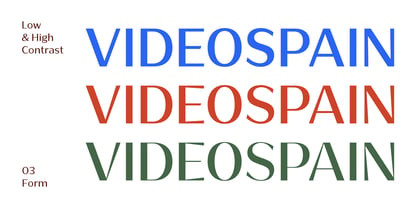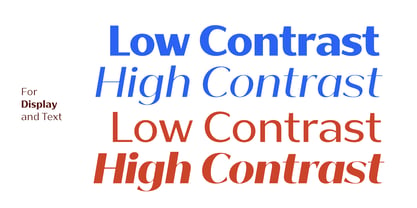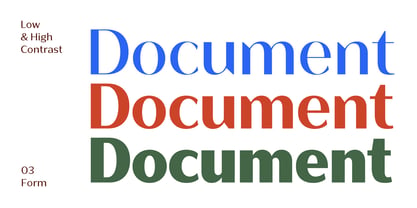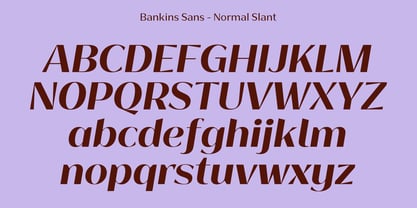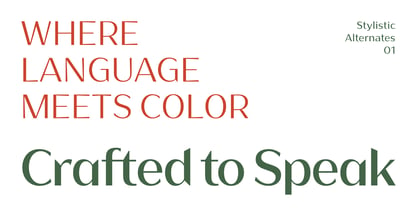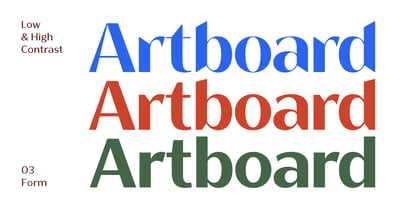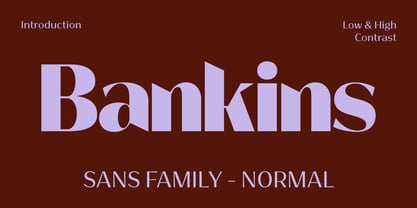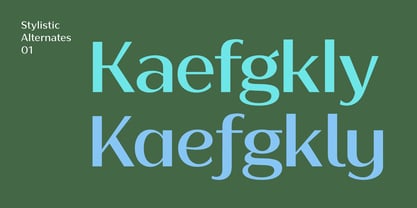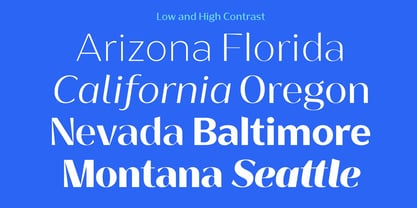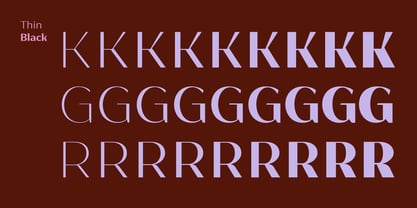
Bankins Normal
by Akbartype
The Bankins Normal Font Family was designed by Azzura . and published by Akbartype. Bankins Normal contains 162 styles and family package options. More about this family
Bankins Normal is a modern sans-serif type family crafted to address the demands of contemporary visual communication. It features smooth, continuous transitions across a complete weight range—from Thin to Black—paired with precise slant control, enabling designers to fine-tune visual tone, rhythm, and emphasis with confidence. The family explores a wide spectrum of contrast and form variations, shaping letterforms that range from clean and neutral to more expressive interpretations, while consistently preserving excellent legibility. Enriched with alternate characters and comprehensive multilingual support, Bankins Normal is ideally suited for branding systems, digital interfaces, editorial design, and modern typographic experimentation—offering a balanced combination of versatility, clarity, and visual consistency.
Designers: Azzura .
Foundry: Akbartype